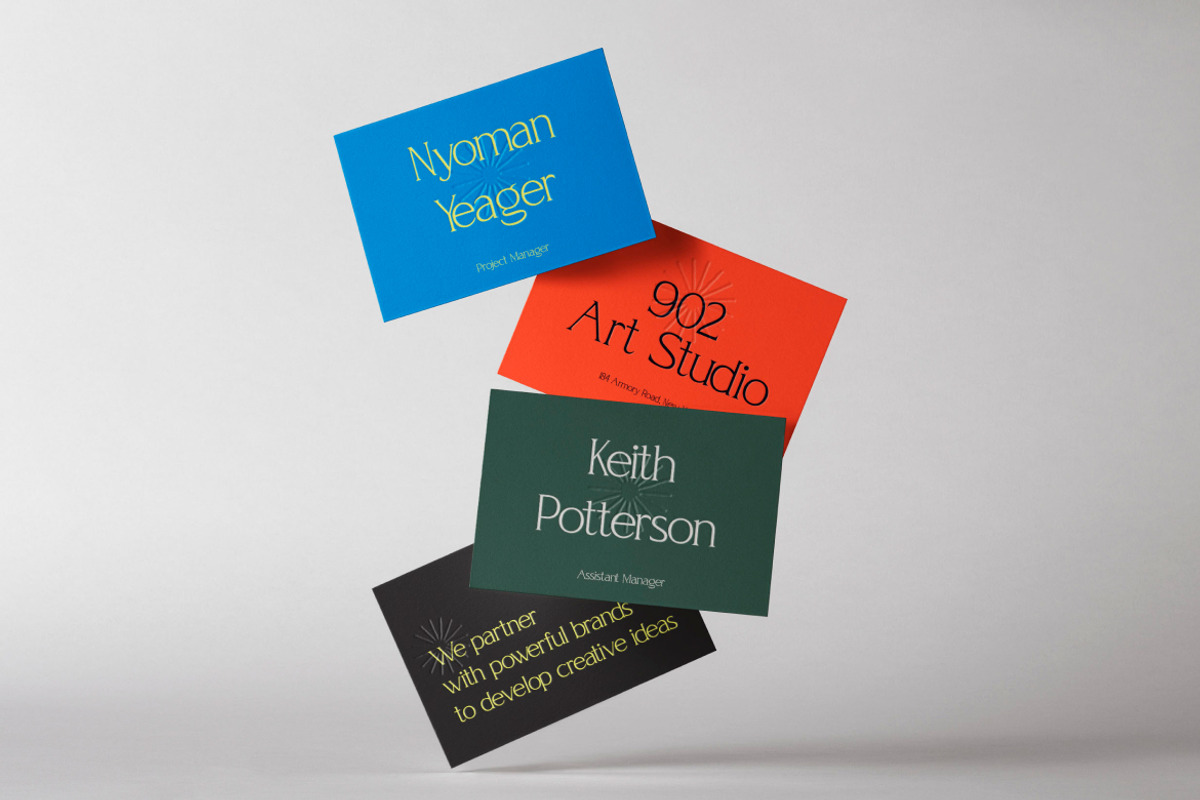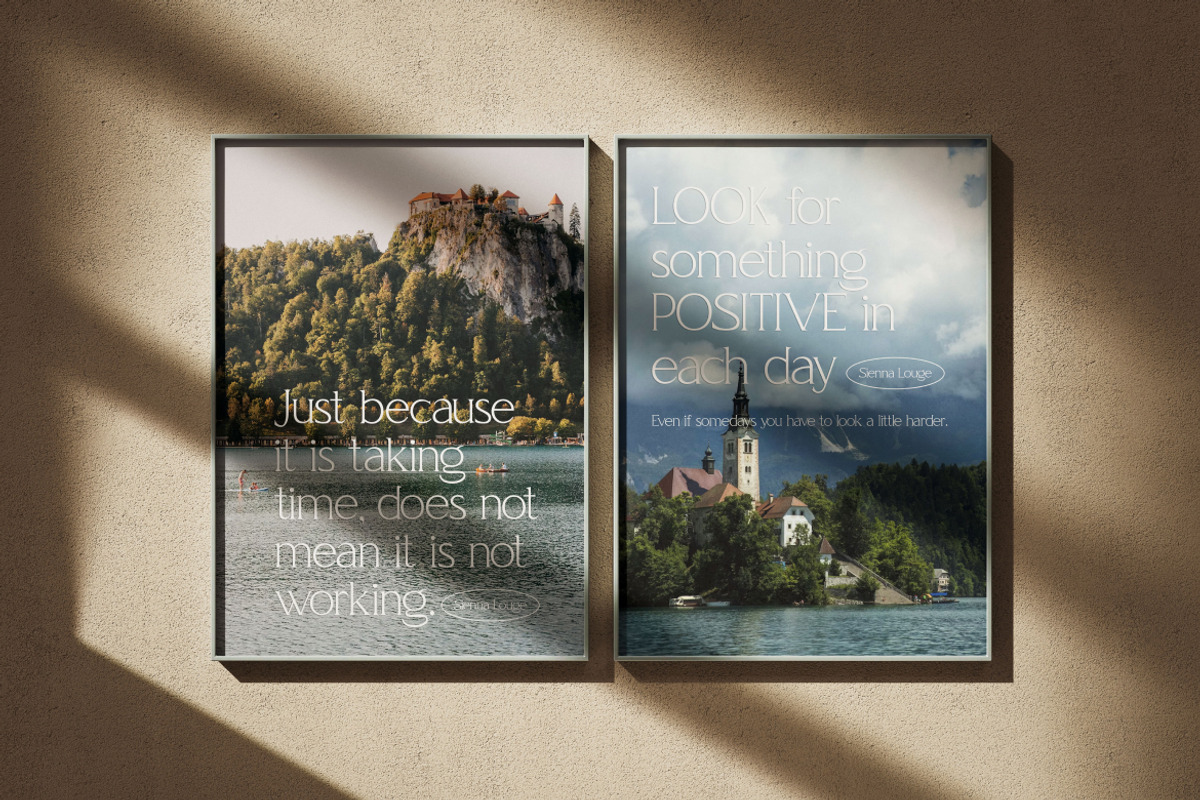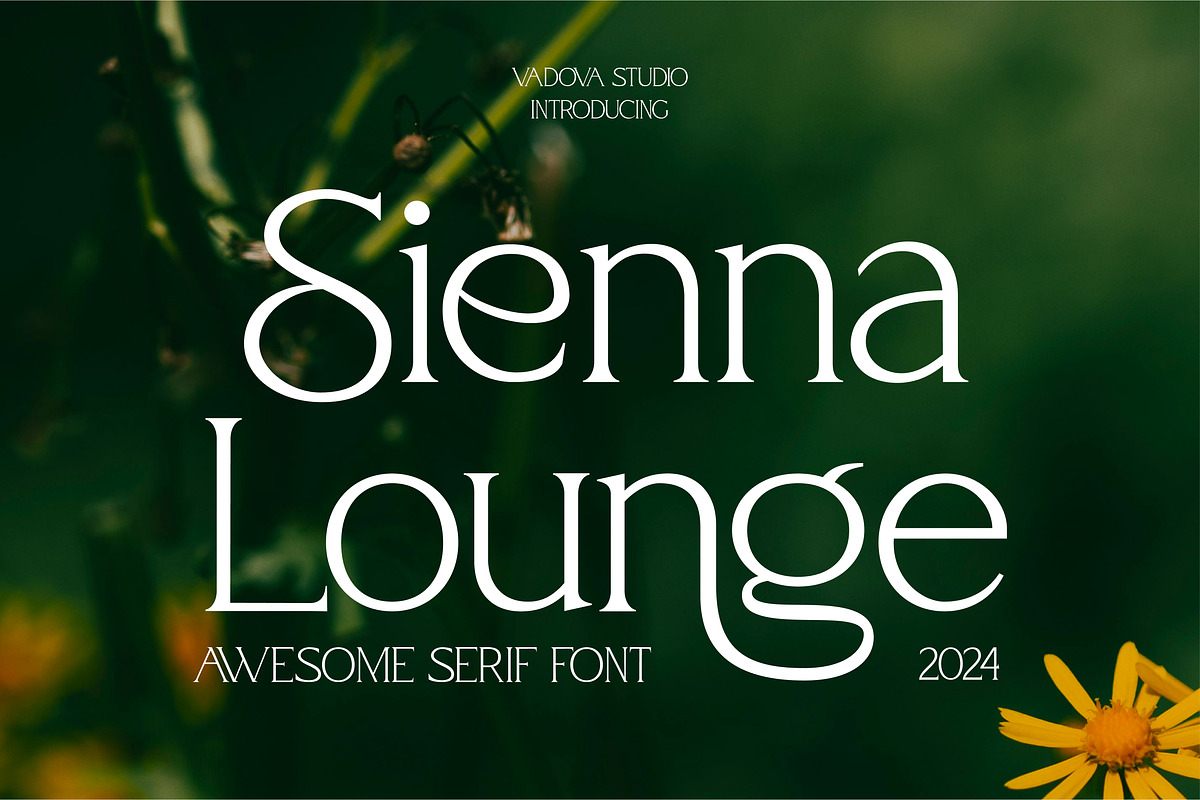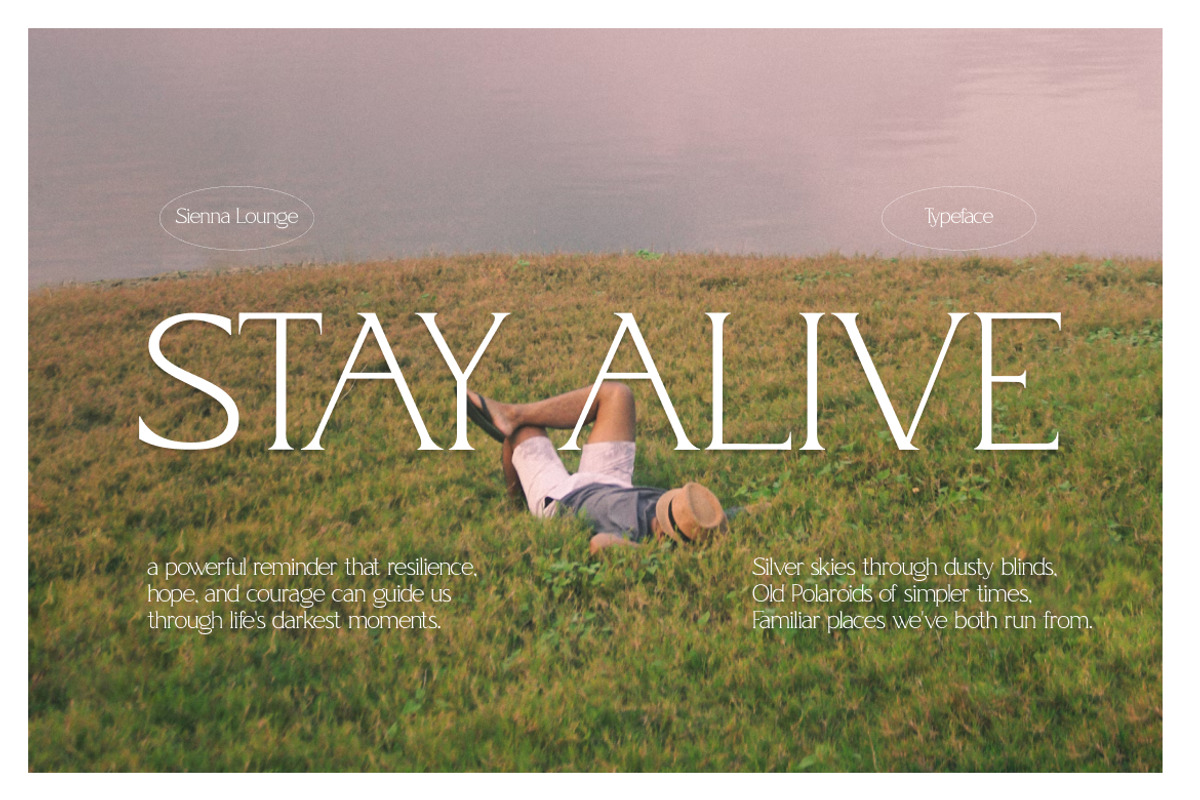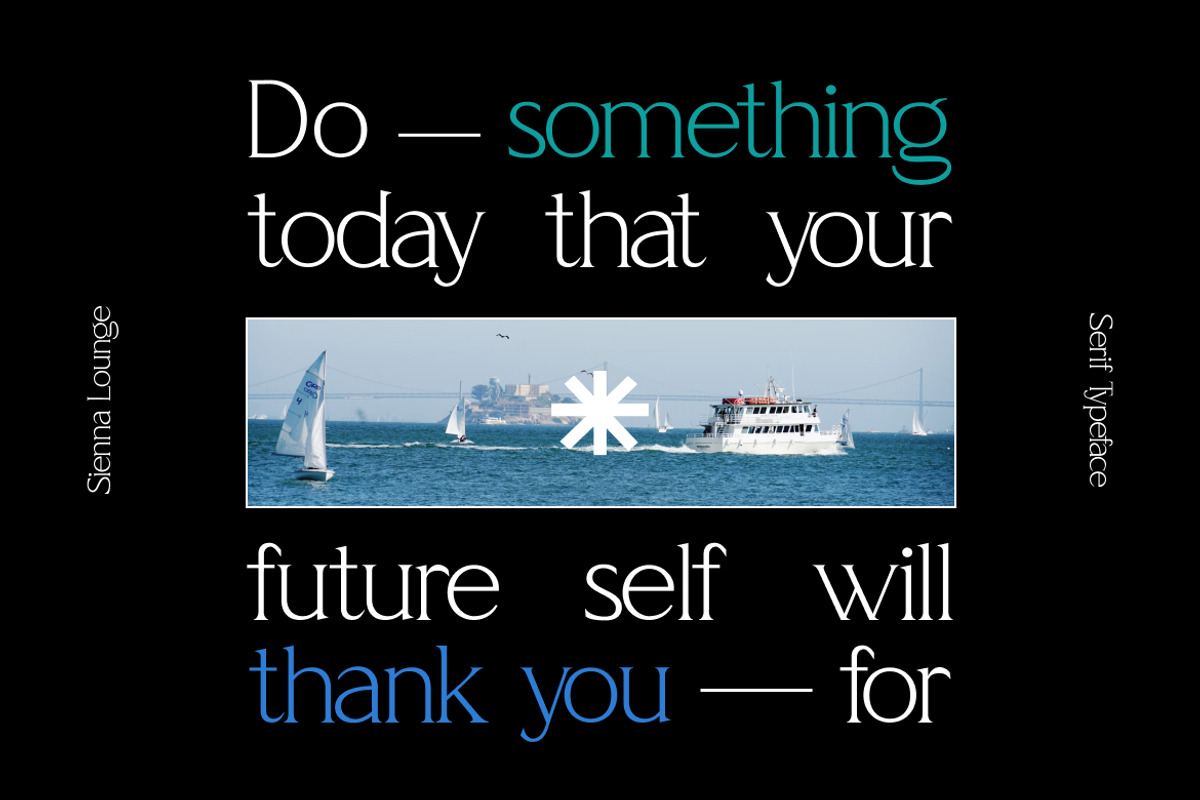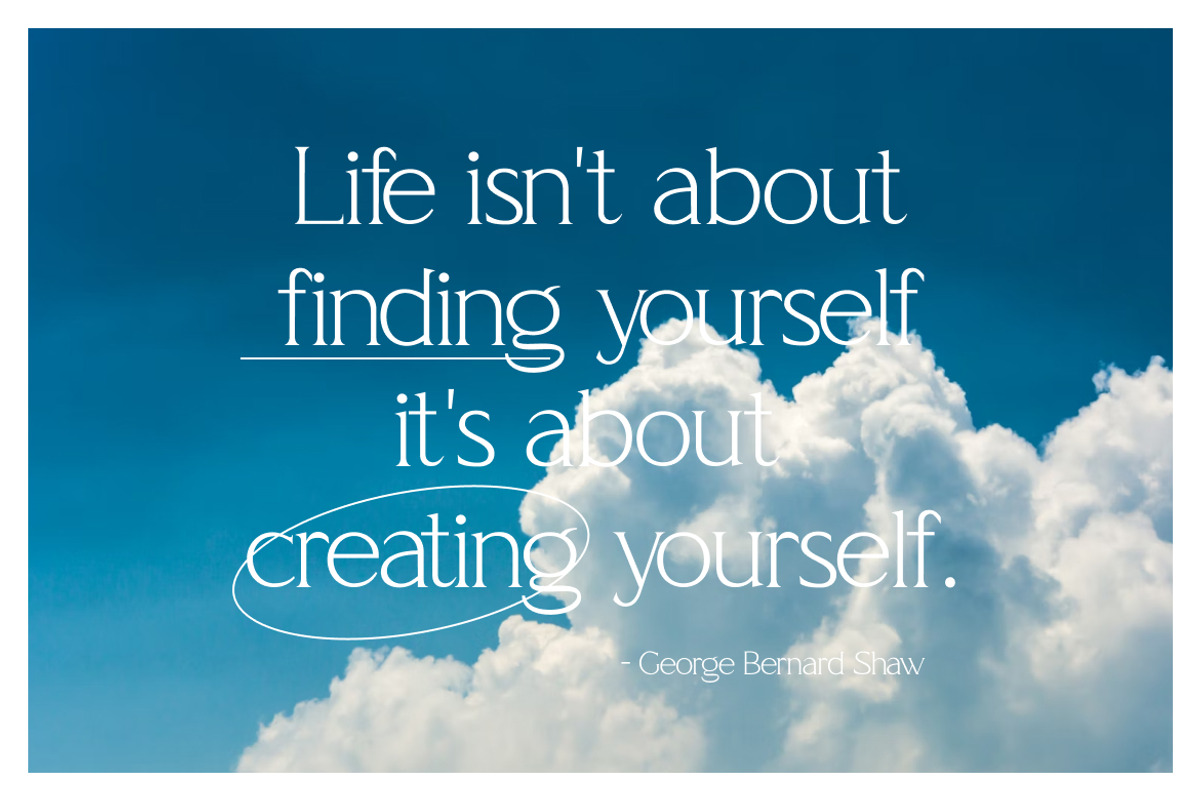
Sienna Lounge – Modern Serif Typefac
Sienna Lounge is a sophisticated serif font that combines modern elegance with timeless charm. Its refined strokes and graceful curves deliver a stylish aesthetic, while unique character details create a distinct and memorable look. Designed for bold statements, this typeface adds refinement and creativity to any project.
This font radiates elegance and versatility—ideal for projects that demand a balance of class and contemporary style. Whether you’re working on fashion branding, editorial layouts, luxury packaging, or wedding stationery, Sienna Lounge ensures your typography speaks with confidence and sophistication.
Why Designers Love It:
Elegant serif structure with stylish decorative curves.
High-contrast letterforms for modern and dramatic appeal.
A perfect blend of classic serif and contemporary artistry.
Designed to stand out in branding and editorial design.
Best Use Cases:
Fashion & Lifestyle Branding
Editorial & Magazine Headlines
Luxury Packaging & Labels
Wedding Invitations & Event Stationery
Creative Logo Design
Premium Marketing Campaigns
Infuse your projects with style, elegance, and contemporary sophistication using Sienna Lounge. More than just a typeface, it’s a design tool for creating unforgettable visual impact. Upgrade your designs today with the timeless beauty of Sienna Lounge.